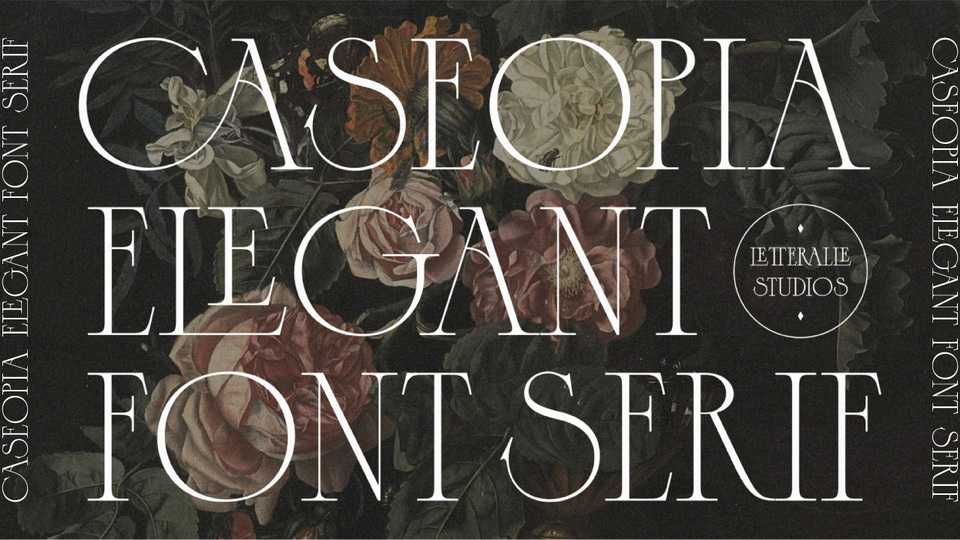
Download Caseopia font, a modern serif typeface that takes a classic style. Designed to give the impression of elegance and luxury with a classic feel.